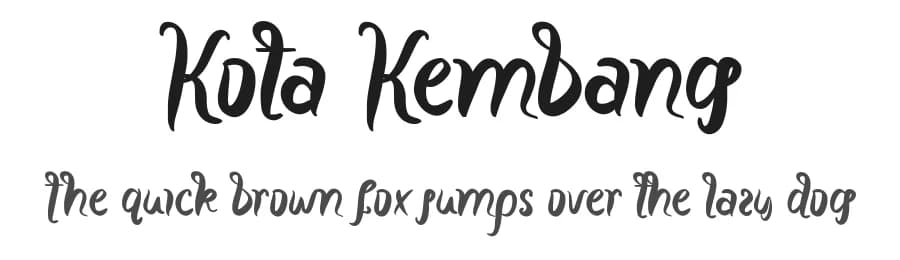
About Kota Kembang Font
Kota Kembang Specifications
| Glyph Count | 194 glyphs |
| Designer | Shalsha |
Kota Kembang supports 211 languages.
Kota Kembang Font is a script font that shines as a display or heading face. Pair it with a clean sans-serif or serif font for body text β the contrast creates a clear hierarchy while the two styles stay balanced and easy to read.
Kota Kembang Font